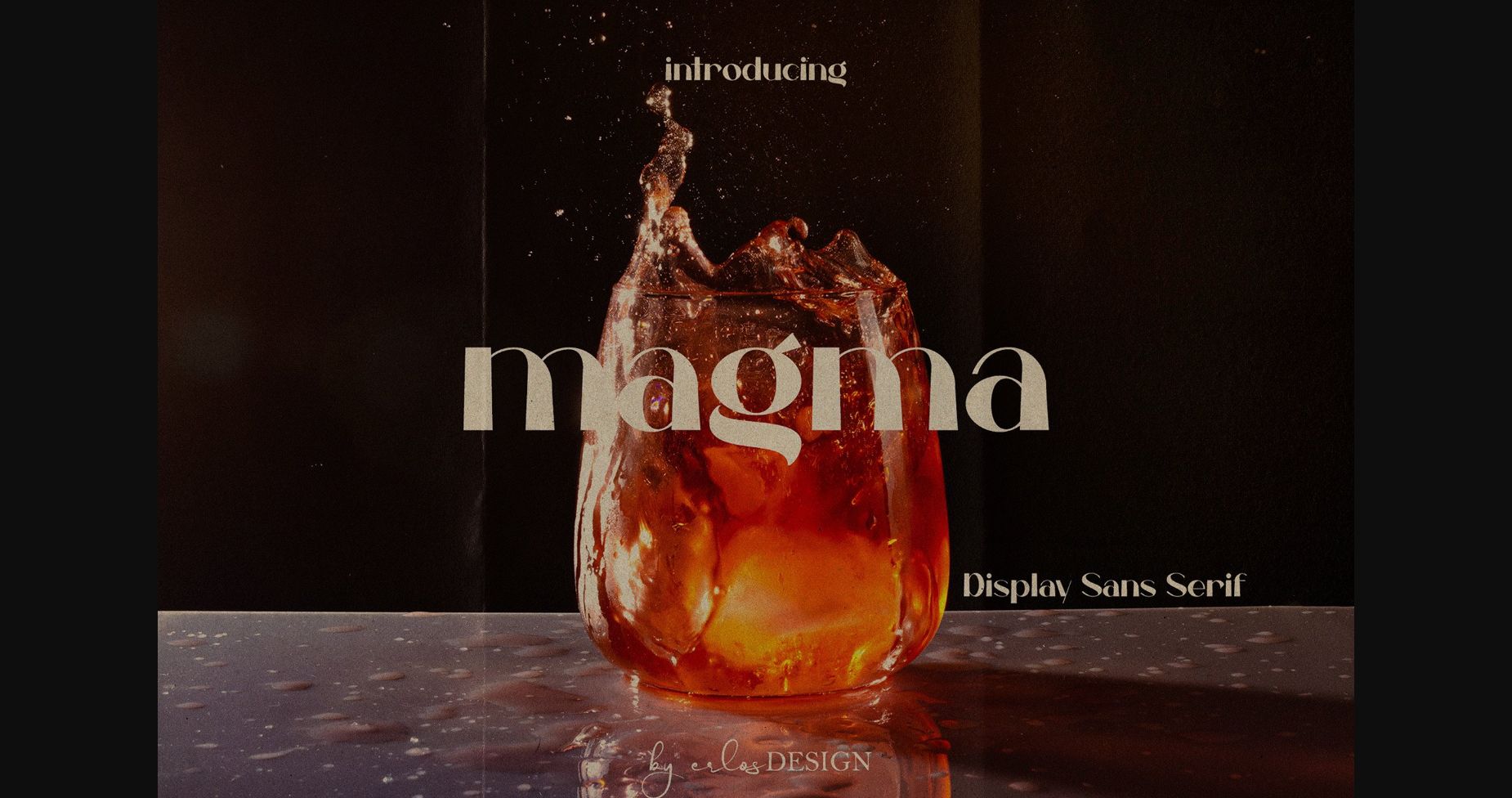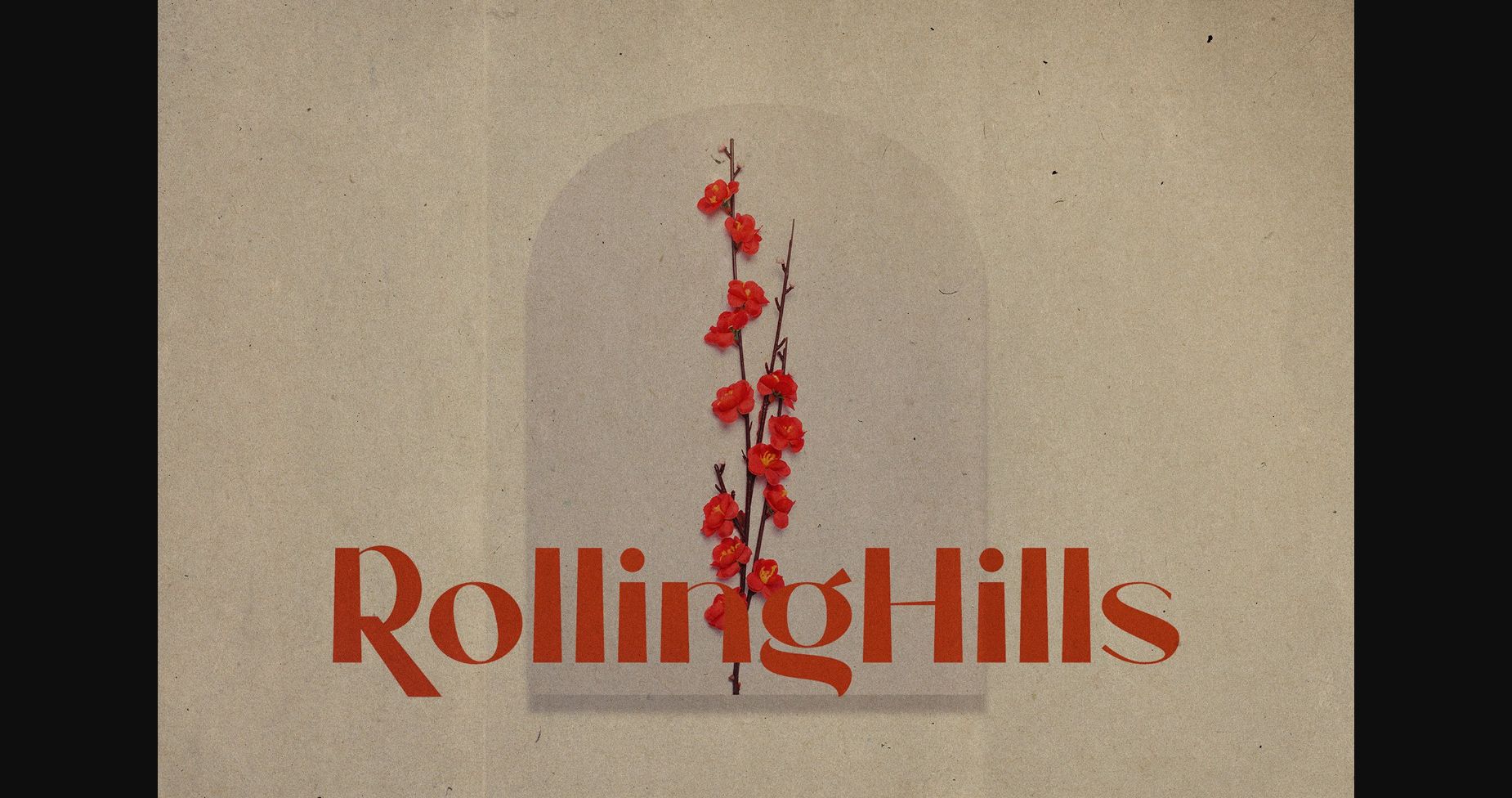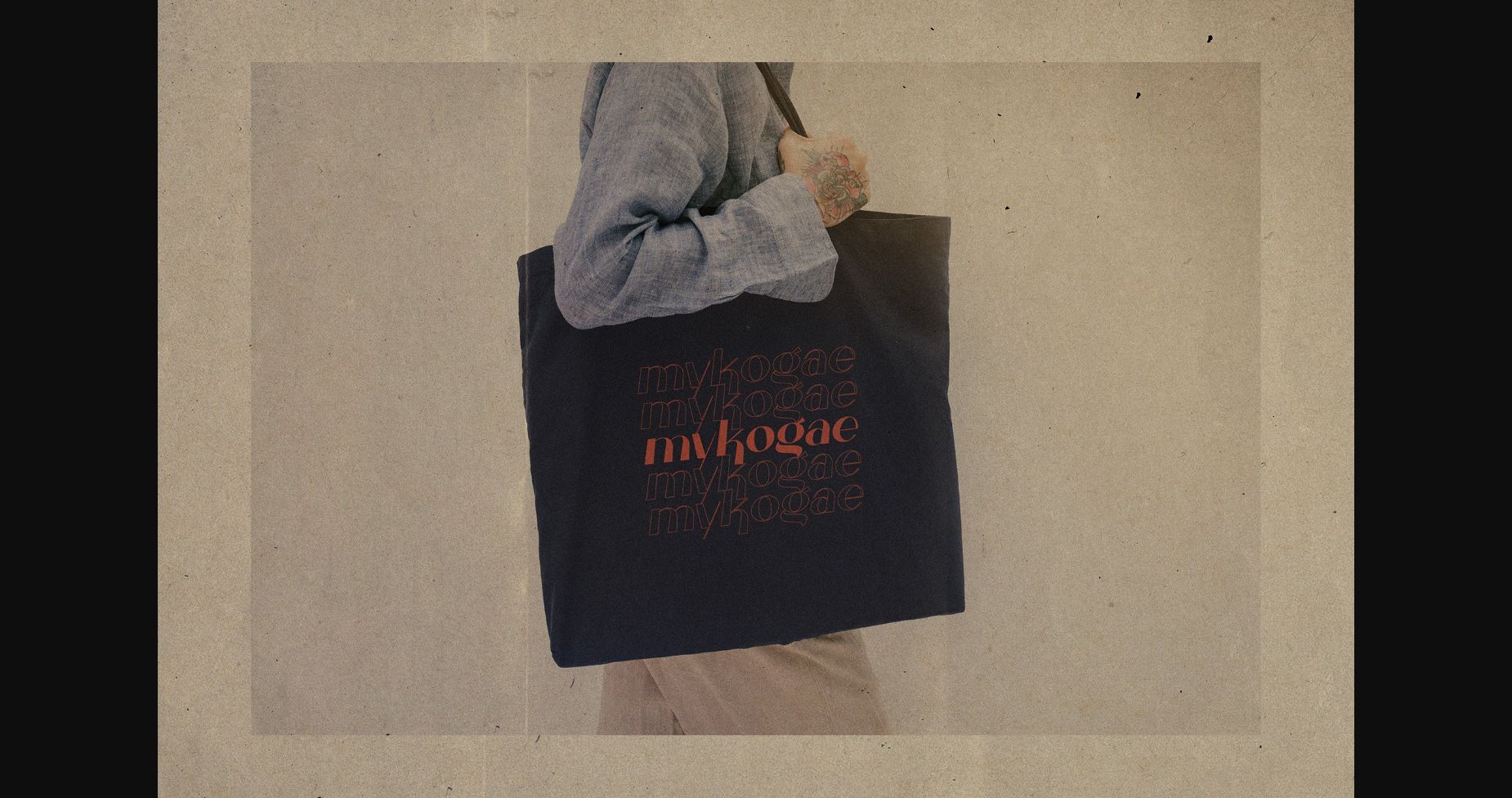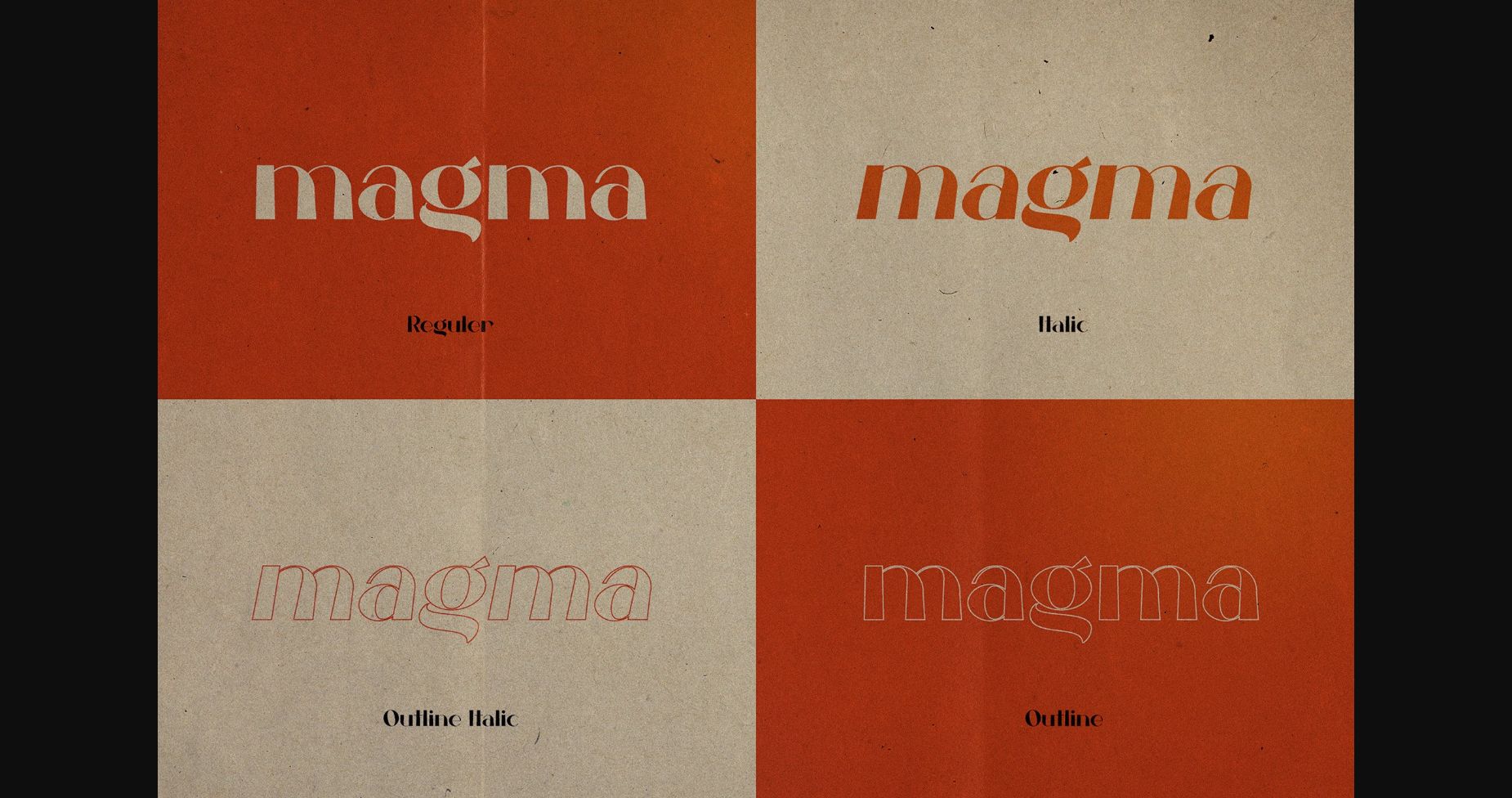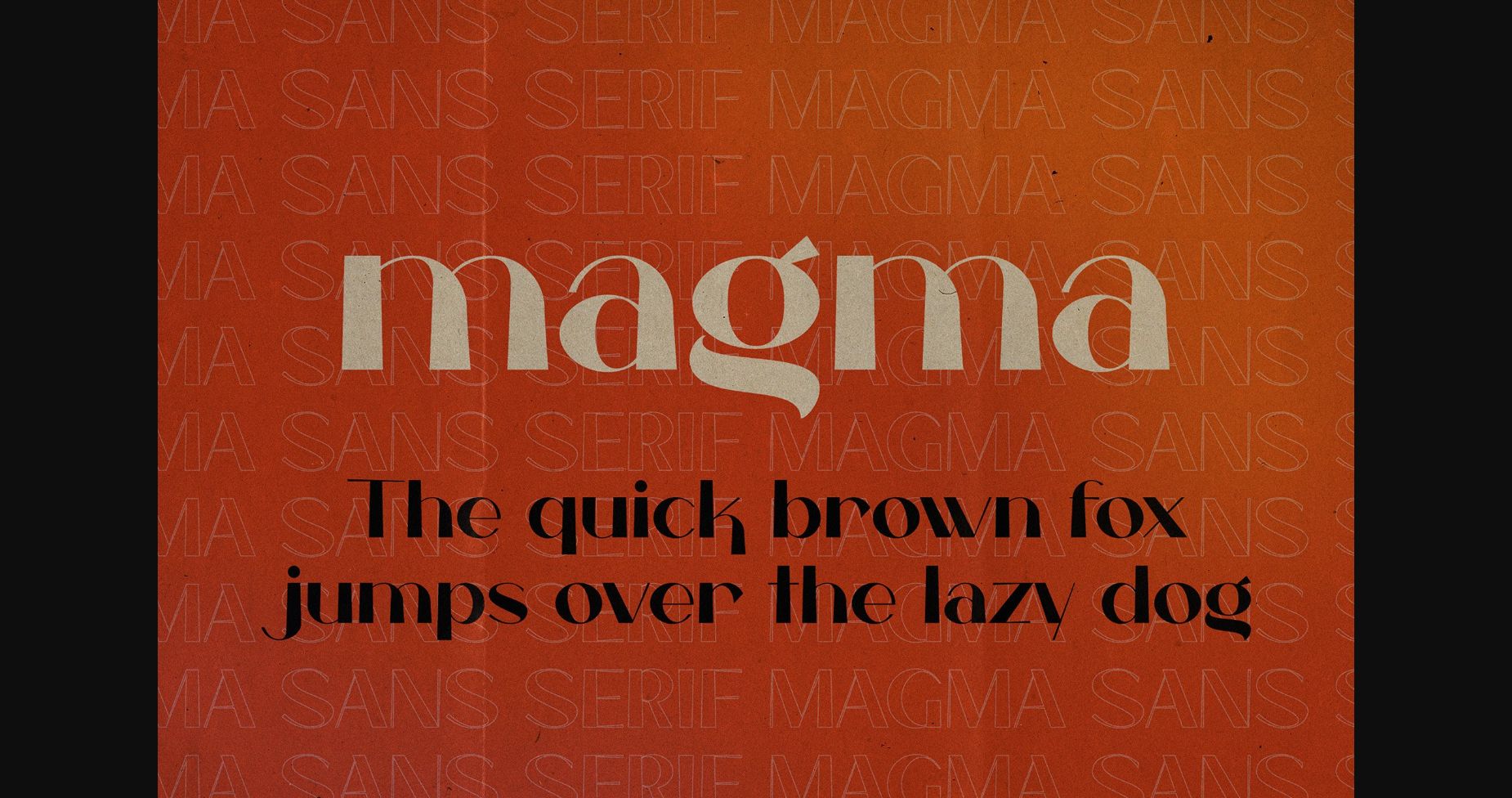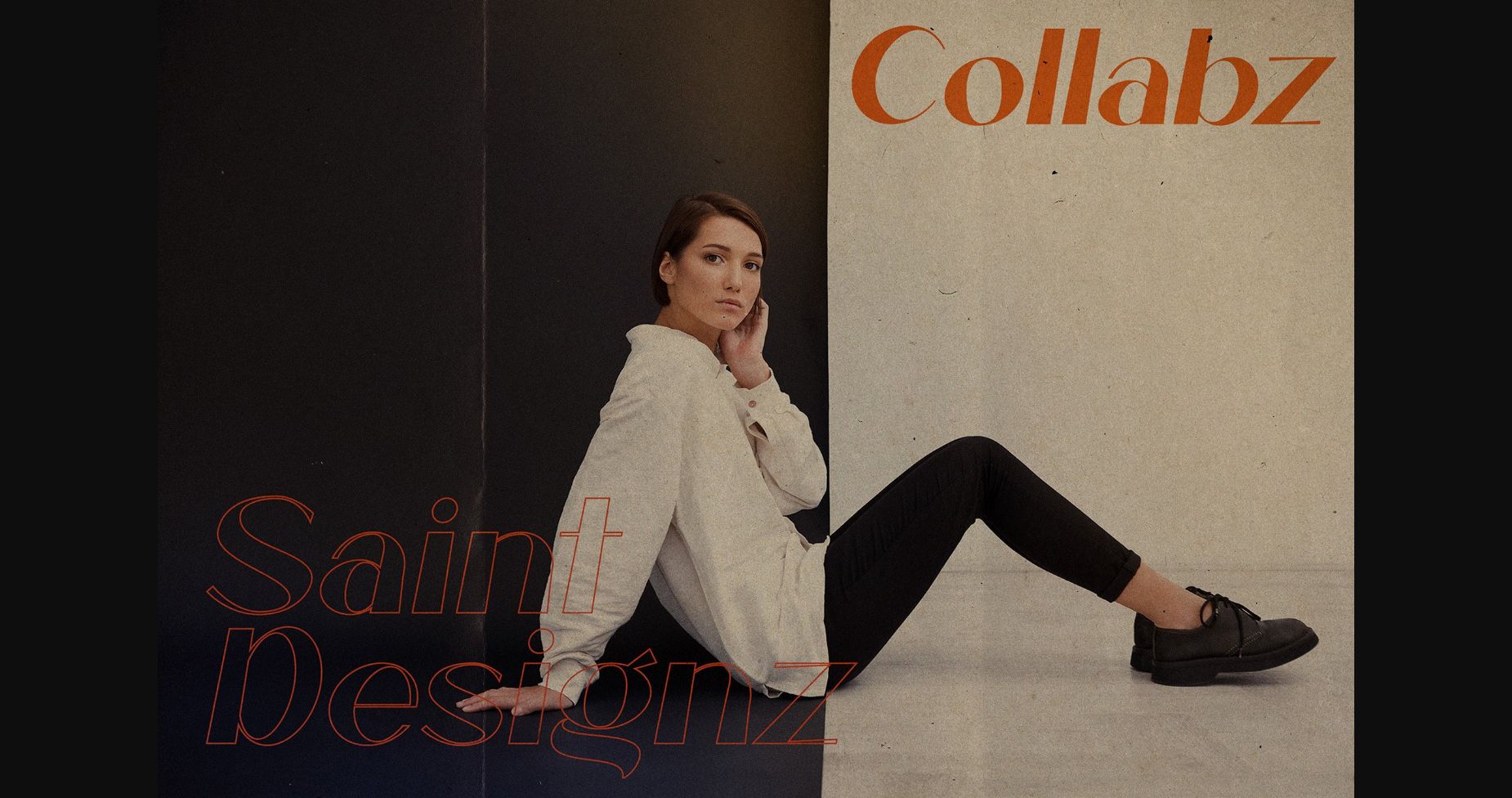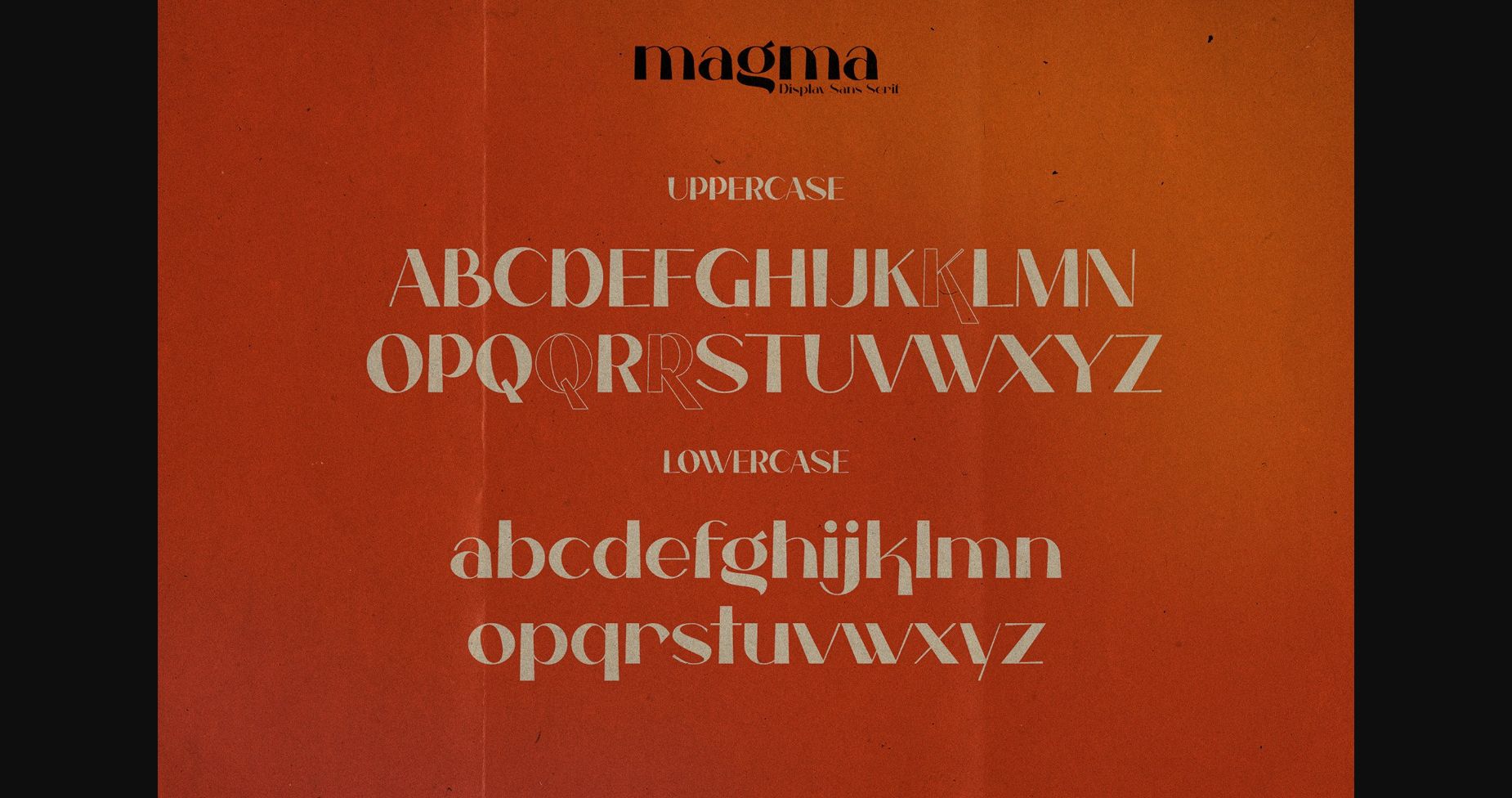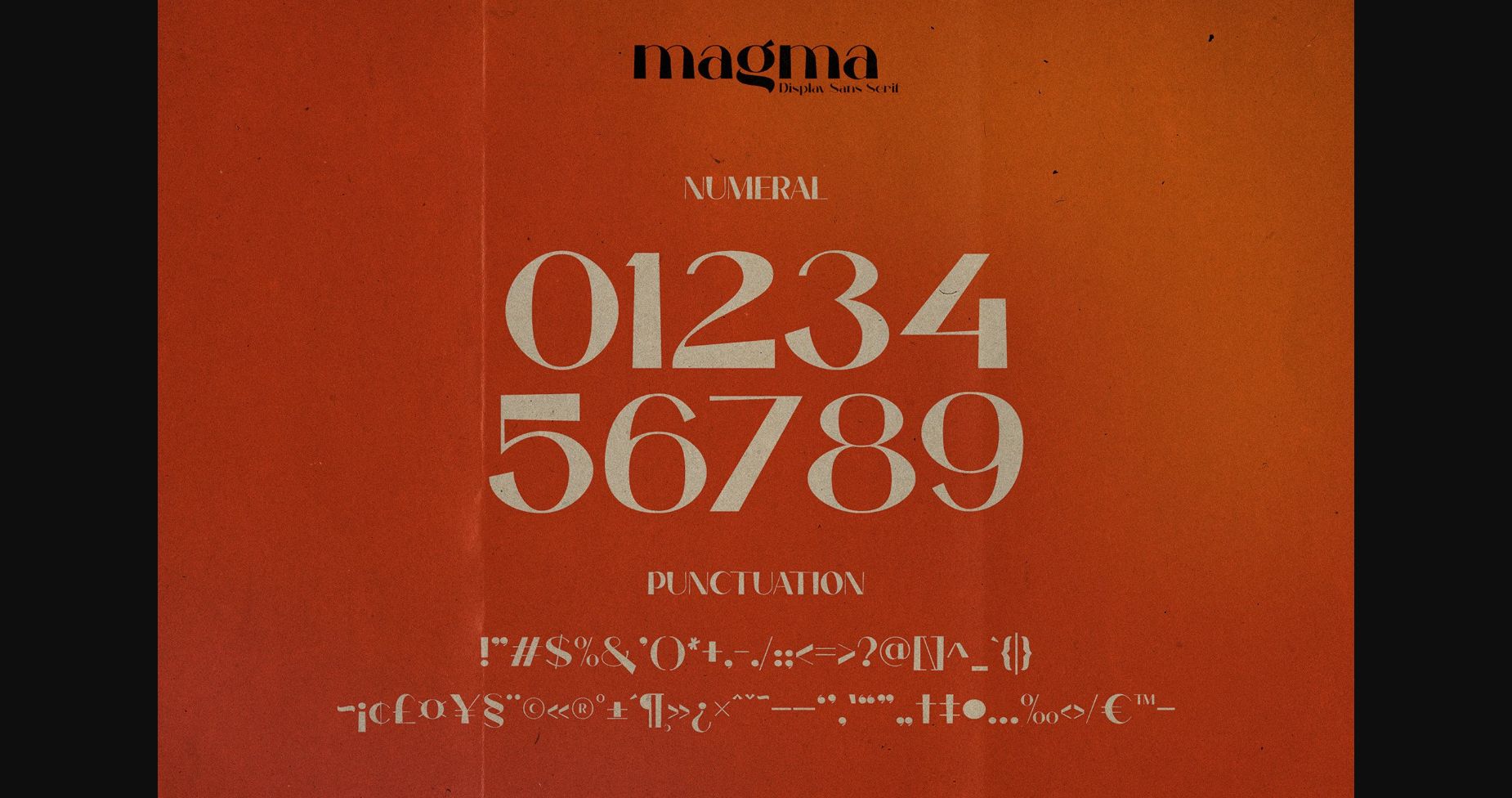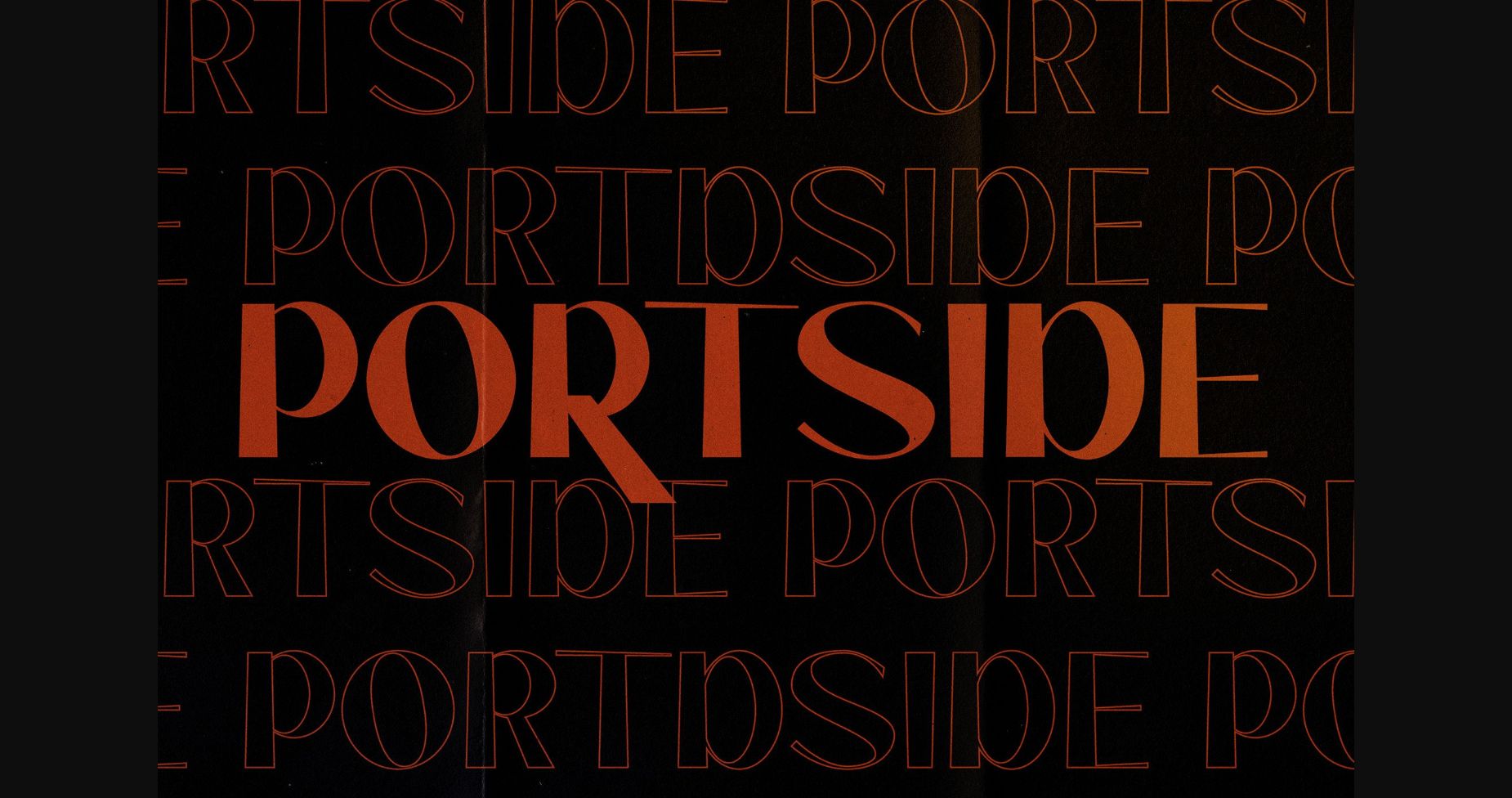
HomeSans Serif FontsMagma Font Sans Serif Fonts Magma Font FacebookXPinterestWhatsApp 1 of 11 ... Magma Font Poster 2... Magma Font Poster 3... Magma Font Poster 4... Magma Font Poster 5... Magma Font Poster 6... Magma Font Poster 7... Magma Font Poster 8... Magma Font Poster 9... Magma Font Poster 10... Magma Font Poster 11... About Magma Font Magma is a display sans serif font with a modern style. No matter the topic, this font will be an incredible asset to your fonts’ library, as it has the potential to elevate any creation. DOWNLOAD NOW People also explored Bintang Noela Loma Font Corradine Handwriting Family Font Hasley Bellion Font Towel Font Somelove Font Journey Font Maldona Font Summer Greetings Font 361 0 TagsMagmaMagma Font Previous articleYounglife FontNext articleModern Girl Font LEAVE A REPLY Cancel reply Comment: Please enter your comment! Name:* Please enter your name here Email:* You have entered an incorrect email address! Please enter your email address here Website: Save my name, email, and website in this browser for the next time I comment. Personal Use Free Yumail Personal Use Free Read more about this font Muthiara Font Personal Use Free Read more about this font Jilliant Personal Use Free Read more about this font Folgore Personal Use Free Read more about this font BLOG Free vs Paid Fonts: Why Investing in Premium Fonts Is Worth It Free vs Paid Fonts: Why Premium Fonts Are Worth It in 2025 The debate of free vs paid fonts continues in the design world. While... Modern Sans-Serif Fonts That Brands Love in 2025 Top 7 Google Fonts Alternatives for Faster and Privacy-Friendly Web Design (2025) How to Install and Use Fonts on Windows, macOS, and Web Projects